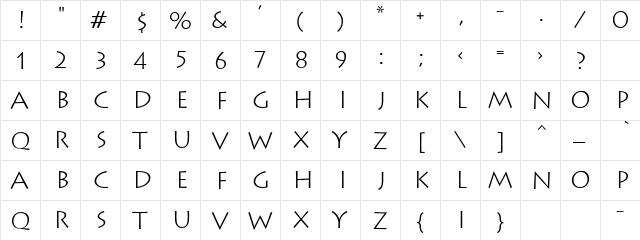
Stein Regular
Design Context for Stein Typeface
Stein offers clean, dependable letterforms without strong stylistic allegiance, making it a practical choice for designers who need flexibility.